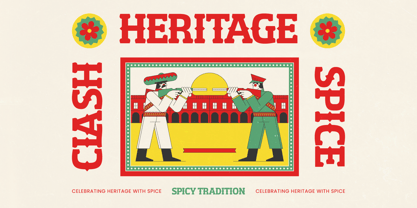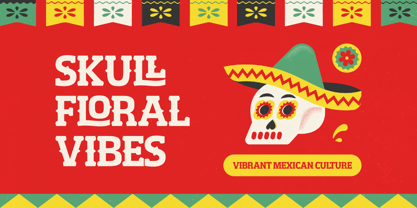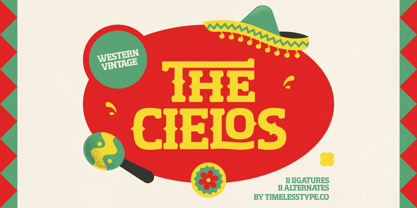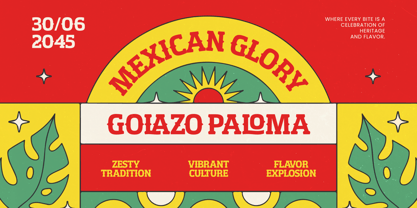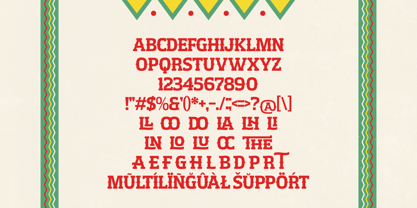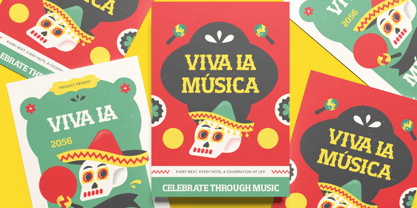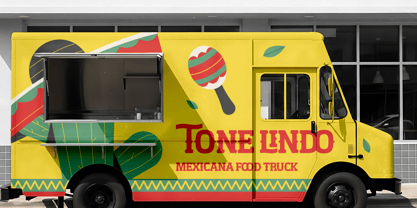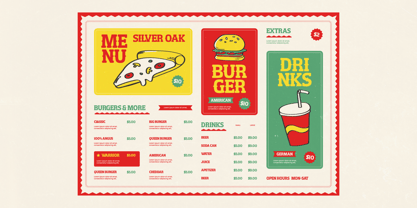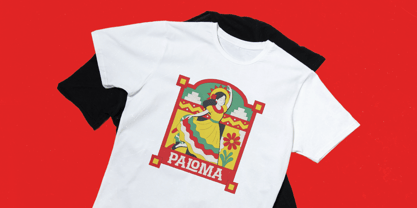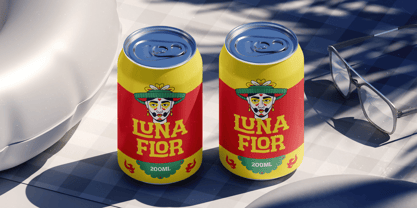
The Cielos
La famille de polices The Cielos a été conçue par Heru Utama Putra et publiée par Timelesstype Studio. The Cielos contient 2 styles et options de package familial. En savoir plus sur cette famille
The Cielos – Western Vintage Font The Cielos is a bold Western vintage display font inspired by classic frontier signage, retro rodeo posters, and old-school saloon typography. With its strong slab-style structure and distinctive decorative edges, this typeface delivers authentic cowboy character with a modern, polished finish. Featuring 11 ligatures and 11 alternates, The Cielos provides flexibility while maintaining its powerful vintage personality. The bold letterforms are designed to stand out, making this font perfect for impactful headlines, western branding, packaging, and themed event materials. If you’re looking to create designs with a rustic, Americana, or retro western vibe, The Cielos brings that timeless frontier spirit into your typography.